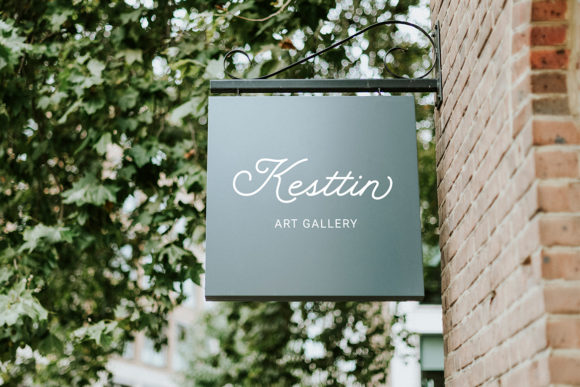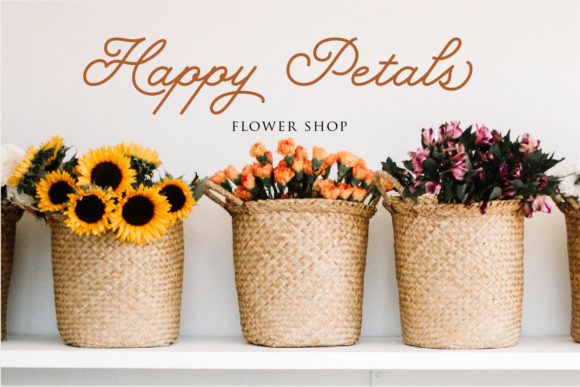
Hearty Morning Font
db-ku.com - Script & Handwritten -- Hearty Morning is inspired by classic typography and brings its own unique style to any design project. This fantastic handwritten font is best suited for headlines of all sizes, as well as for blocks of text that have both maximum and minimum variations. Whether it’s for web, print, moving images or anything else – Hearty Morning will look spectacular.